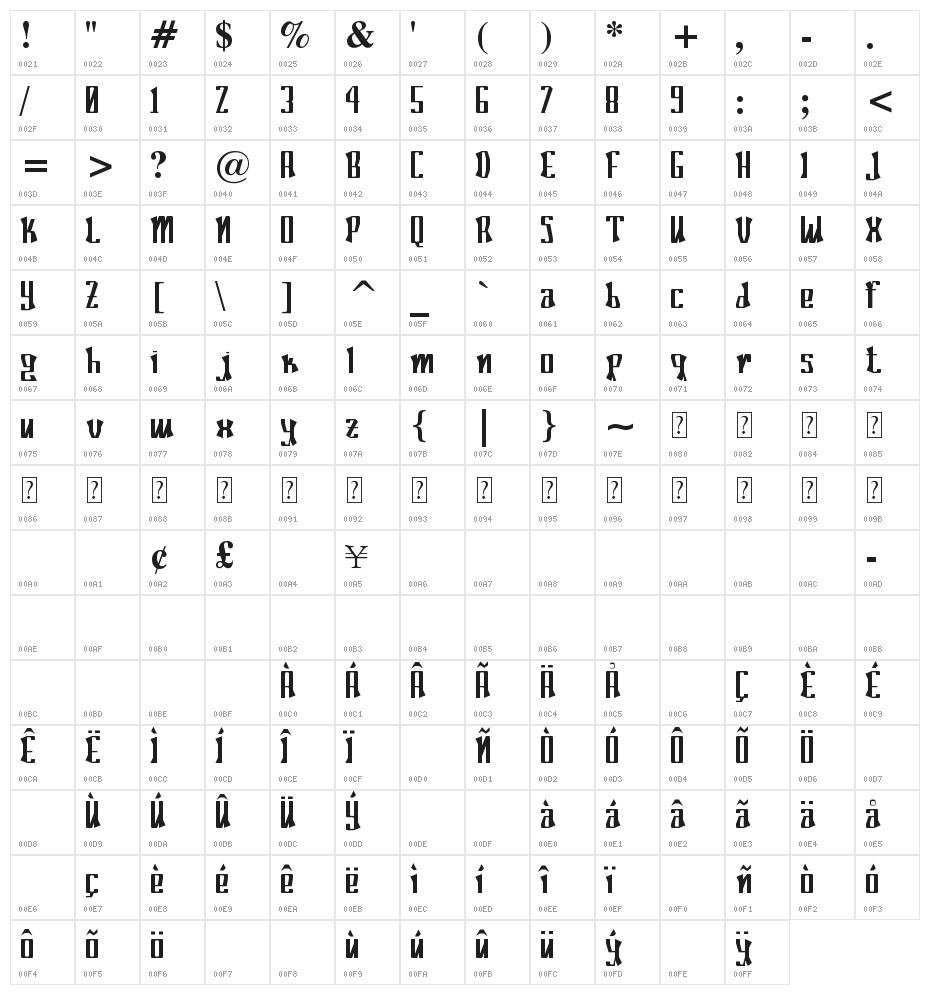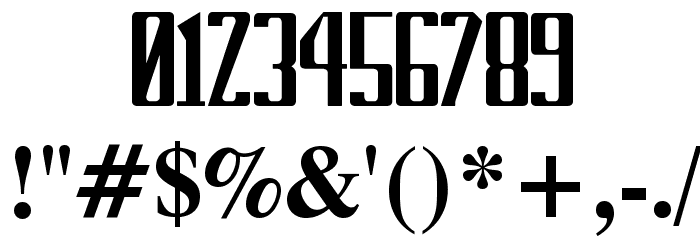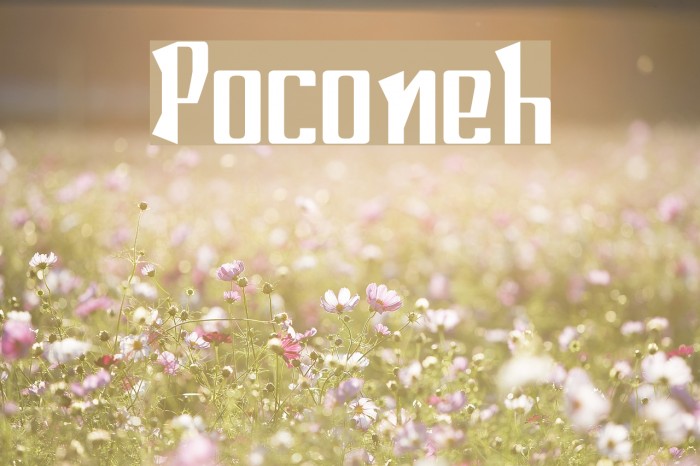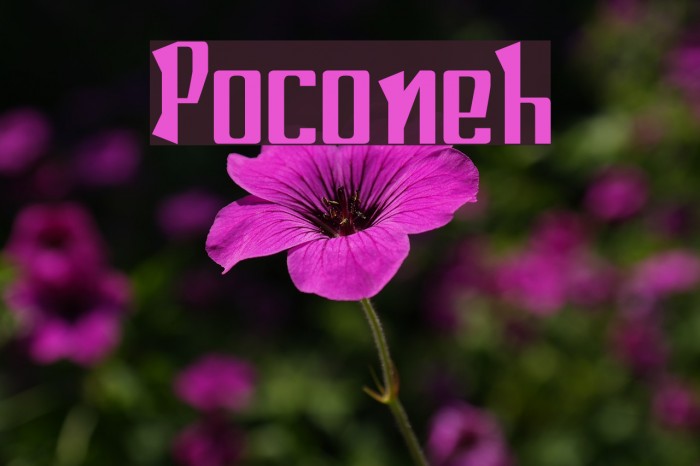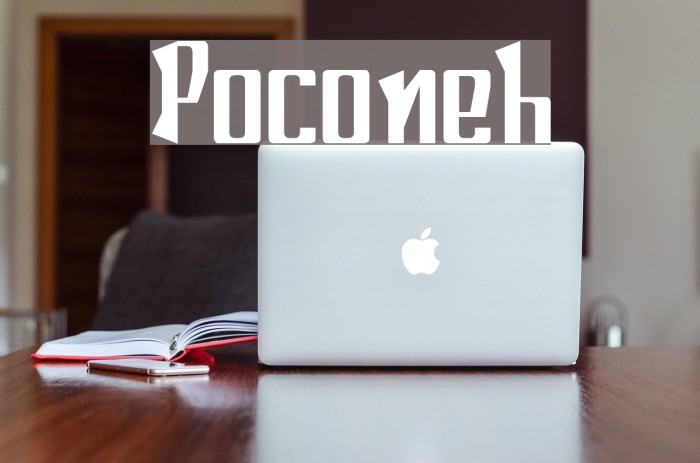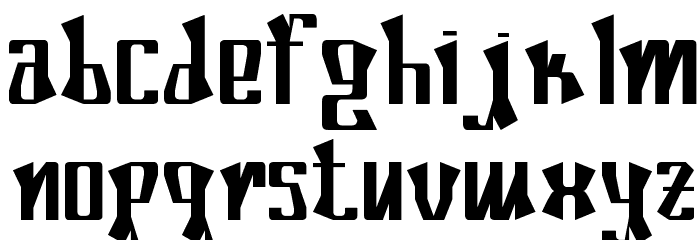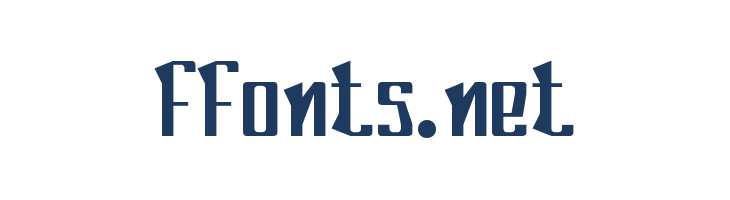
Poconeh Font
Poconeh Description
This font features a bold and striking design with sharp, angular edges and a geometric structure. The uppercase letters are particularly distinctive, with a strong presence and a modern, edgy feel. The lowercase letters maintain the same angular style, providing a cohesive look across the typeface. Numbers and special characters are designed with the same boldness, ensuring consistency throughout. The font's unique style makes it ideal for projects that require a strong visual impact.
| Proposed Projects | Ideal for branding, poster design, album covers, and any project requiring a bold statement. |